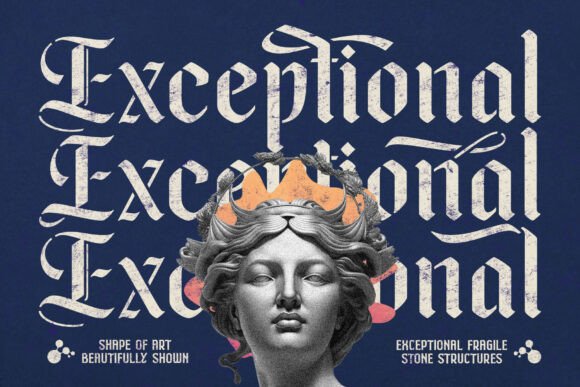
Unleashing the Power of Black Deamond Font: A Bold Fusion of Blackletter & Stencil Aesthetics
In the world of typography, few fonts have made a lasting impact like the Black Deamond typeface. This striking blackletter stencil font has taken the design community by storm, offering a unique blend of medieval elegance and raw, modern edge. Designed for those who seek a bold, rebellious, and vintage gothic style, Black Deamond delivers unmatched versatility with 820 meticulously crafted characters.
The Birth of Black Deamond: A Story of Creative Vision
Black Deamond was born out of a passion for creating a font that would embody the perfect fusion of blackletter and stencil aesthetics. The design team behind this masterpiece sought to create a typeface that would not only pay homage to traditional blackletter fonts but also infuse them with a modern twist. The result is a font that exudes raw power, mystique, and an undeniable sense of rebellion.
Key Features of Black Deamond Typeface
- 820 Meticulously Crafted Characters: Black Deamond boasts an impressive character set, ensuring that designers have ample options for creative expression.
- Blackletter & Stencil Fusion: The font seamlessly blends medieval blackletter styles with the edginess of stencil typography.
- Bold and Rebellious: Black Deamond is perfect for designs that demand a strong, assertive presence.
- Vintage Gothic Style: The font’s unique aesthetic pays homage to traditional gothic typography while introducing a fresh, modern perspective.
Design Applications: Where to Use Black Deamond
Black Deamond’s versatility makes it an excellent choice for a wide range of design applications. Here are some ideas to get you started:
- Band Logos: Create a lasting impression with a bold, eye-catching logo that embodies the spirit of your music.
- Dark-Themed Branding: Add a touch of mystery and sophistication to your brand with Black Deamond’s raw, edgy aesthetic.
- Album Covers: Make your music stand out with a striking album cover that showcases Black Deamond’s unique character.
- Merchandise: From t-shirts to posters, Black Deamond is the perfect choice for creating memorable merchandise.
Typography Tips: Getting the Most Out of Black Deamond
To truly unleash the power of Black Deamond, consider the following typography tips:
- Experiment with Color: Black Deamond looks striking in bold, dark colors, but don’t be afraid to experiment with metallic or neon accents.
- Play with Contrast: Pair Black Deamond with clean, minimalist fonts to create a striking visual contrast.
- Pay Attention to Spacing: Make sure to adjust letter spacing to ensure that your text remains legible and visually appealing.
Black Deamond Font vs. Similar Fonts: What Sets it Apart
While there are many bold, blackletter fonts available, Black Deamond stands out from the crowd. Here’s what sets it apart:
- Unique Character Set: Black Deamond boasts an impressive 820 characters, offering unparalleled creative flexibility.
- Seamless Stencil Integration: The font’s stencil aesthetic adds a modern twist to traditional blackletter typography.
- Unmatched Versatility: Black Deamond is suitable for a wide range of design applications, from band logos to dark-themed branding.
Unleash the Darkness: Conclusion
In conclusion, Black Deamond is a game-changing typeface that is sure to elevate your designs to new heights. With its bold, rebellious aesthetic and unmatched versatility, this font is perfect for designers who seek to make a lasting impression. Whether you’re creating band logos, dark-themed branding, or album covers, Black Deamond is the perfect choice.